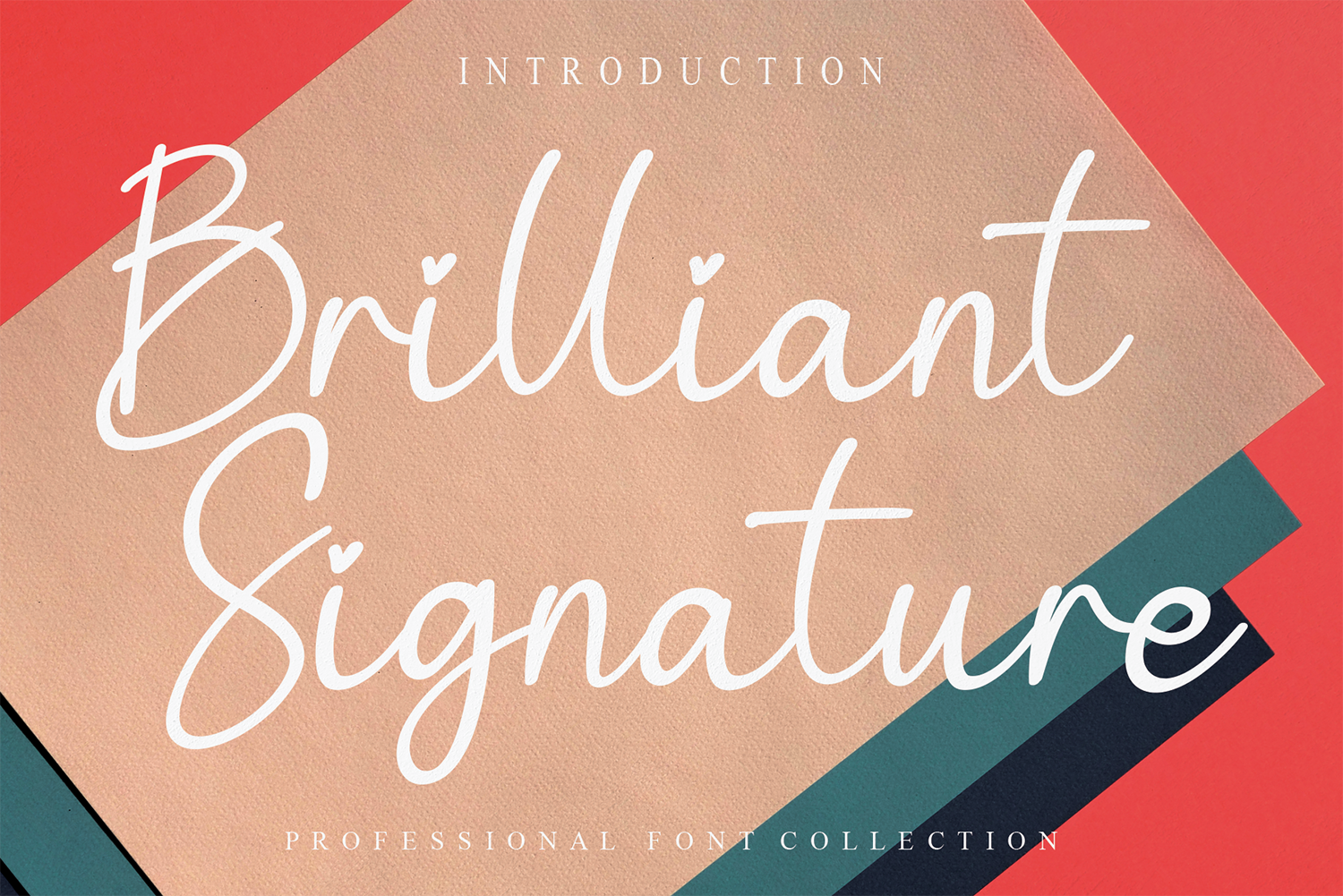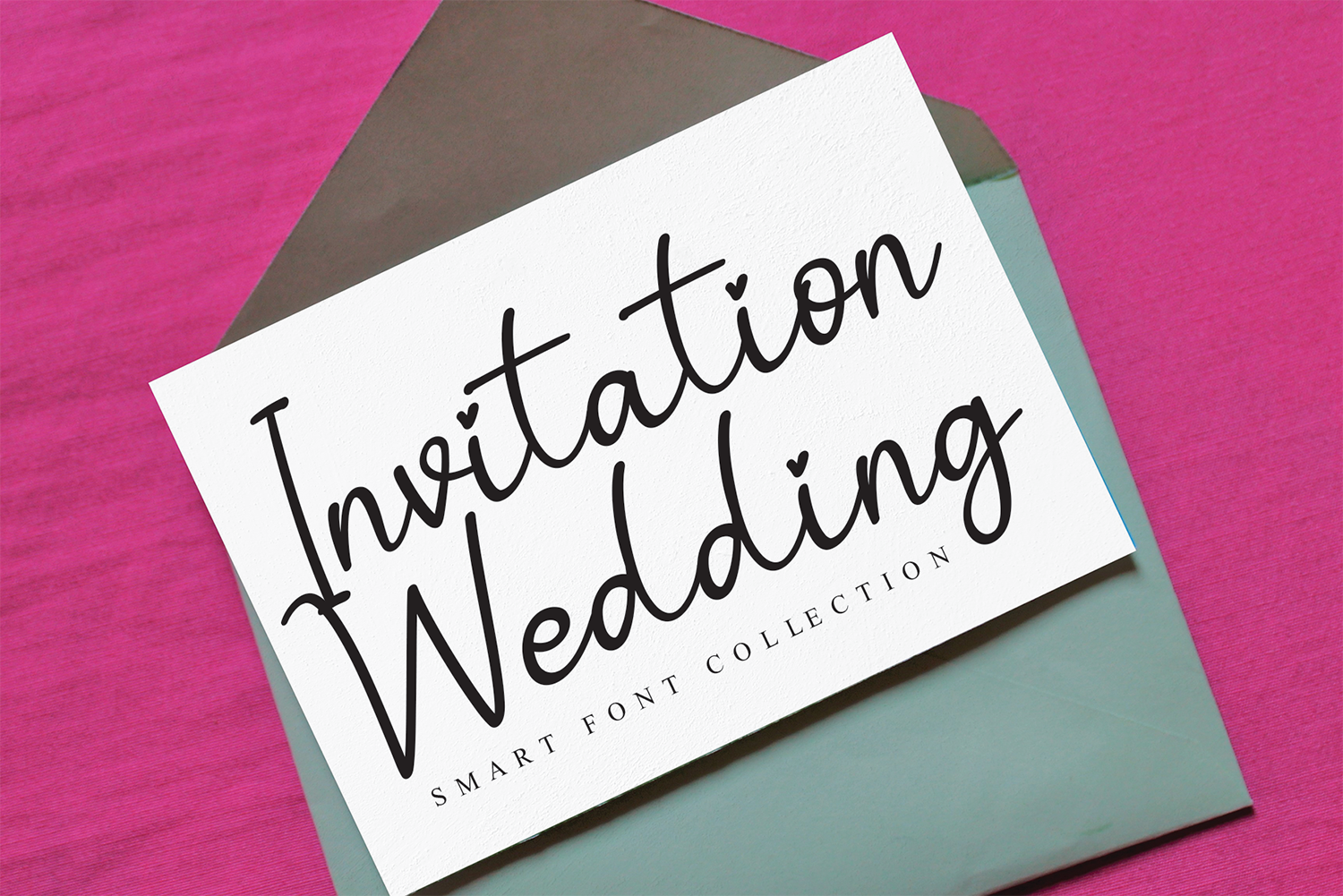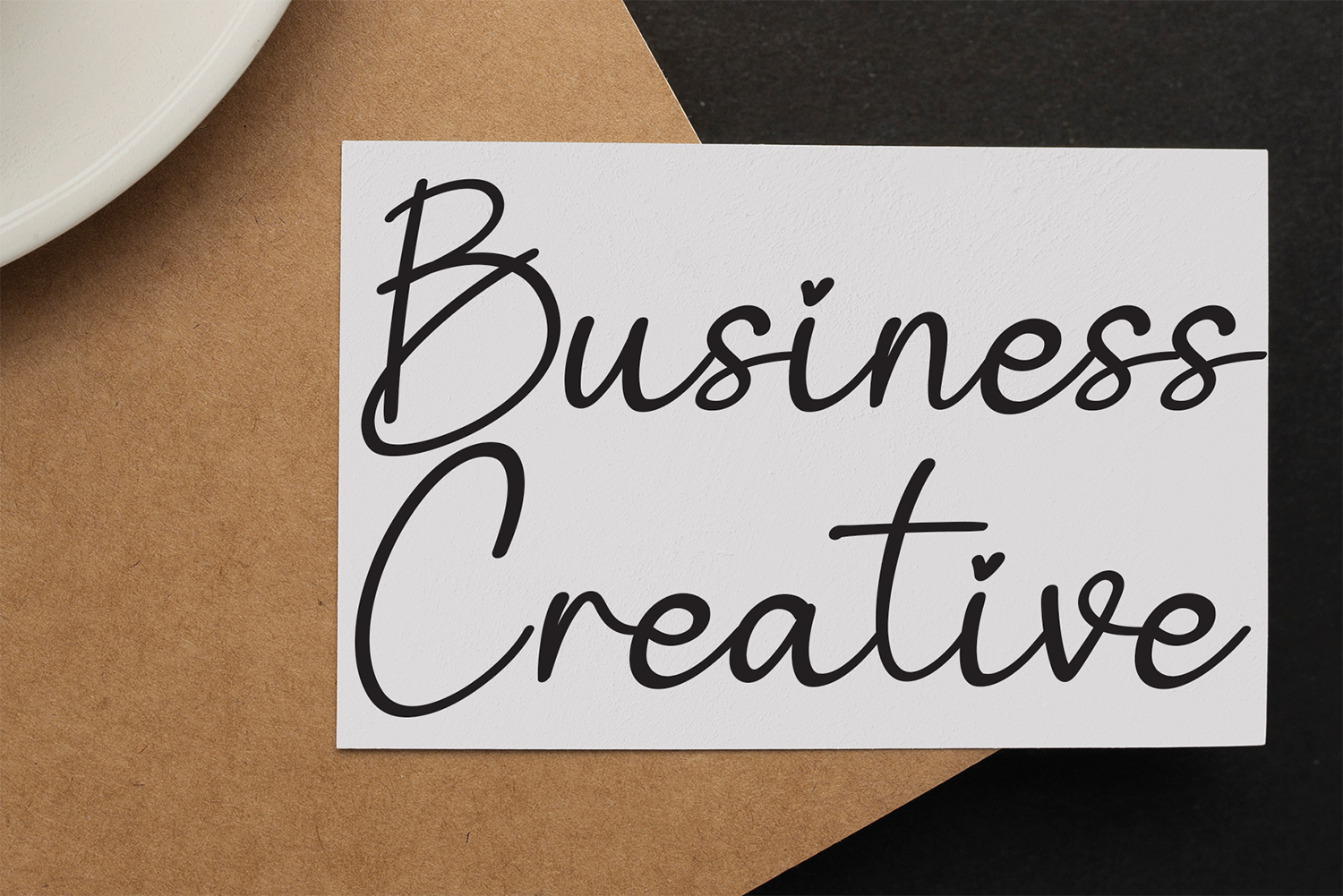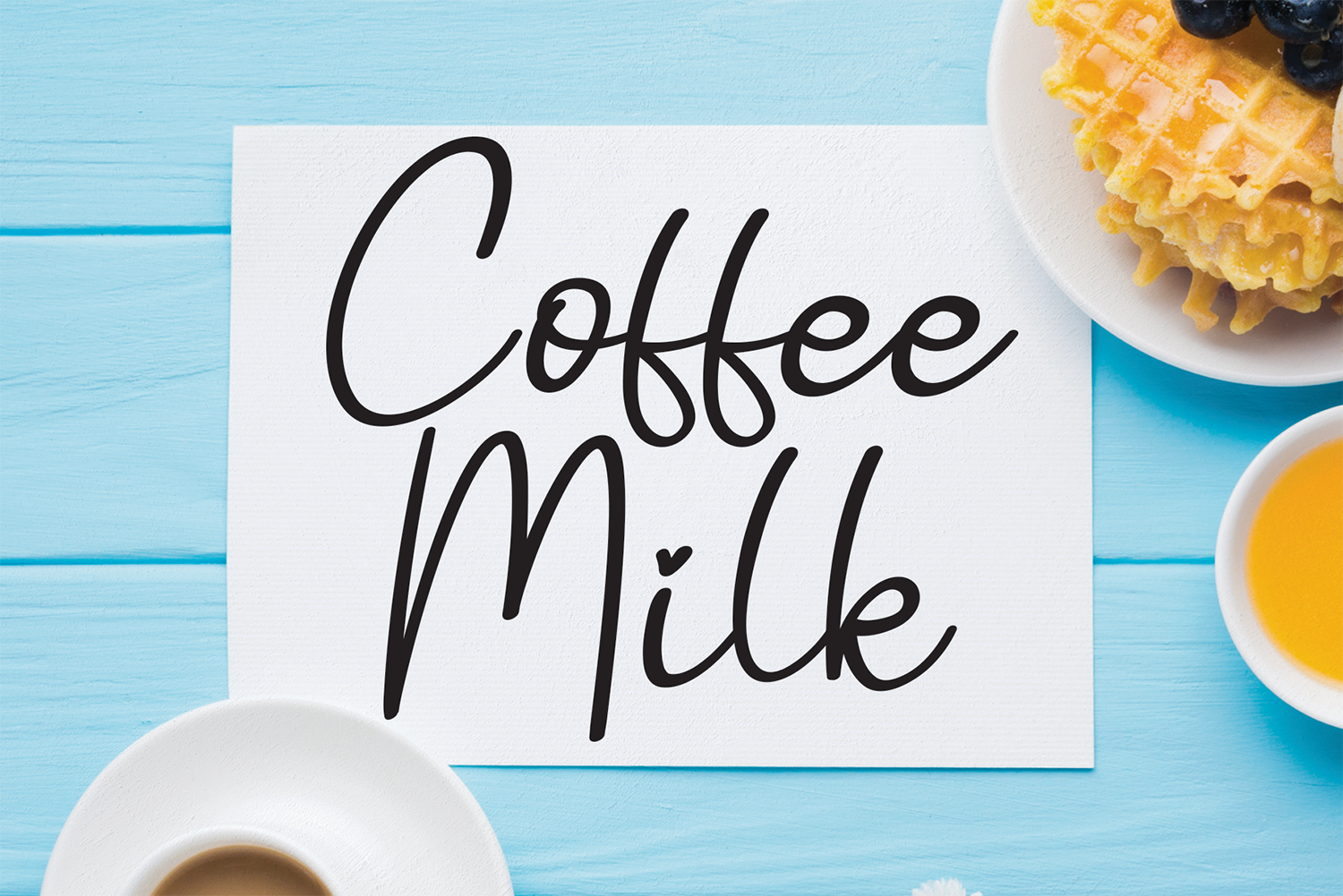
Brilliant Signature Free Font
Experience the allure of Brilliant Signature Free Font, a handwritten font that exudes charm and timelessness. Unquestionably the prime option for crafting captivating logos, establishing impactful branding, and highlighting poignant quotes. Infused with individuality, each letter boasts a distinctive and beautiful essence, breathing vibrancy into your design and bringing it to life. This free typeface was designed by a talentedΒ Scratchones Creative. If you like it don’t forget to check out the full version.